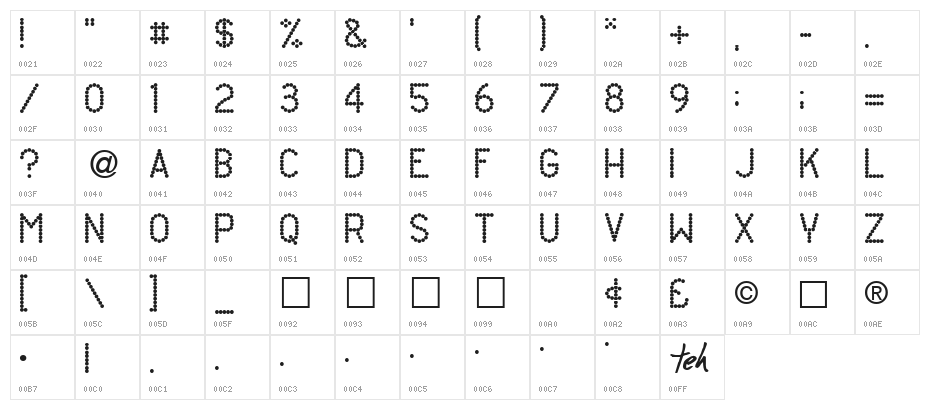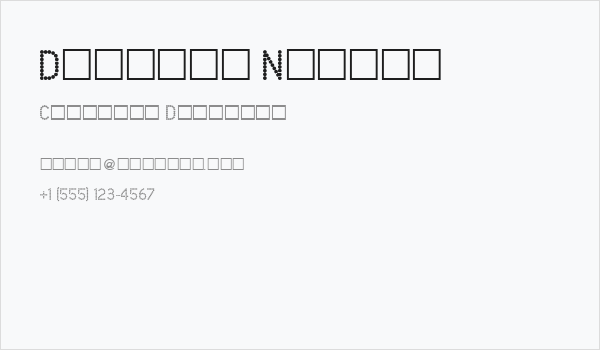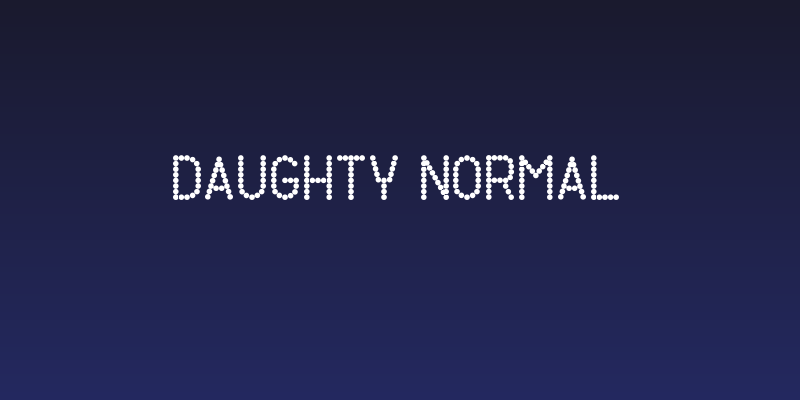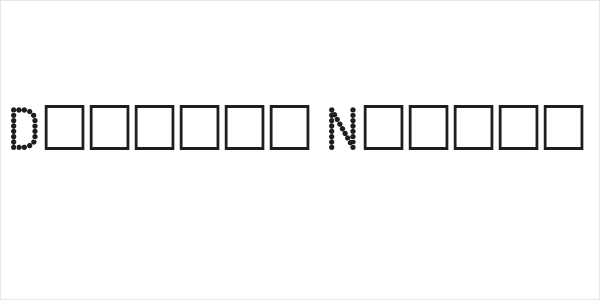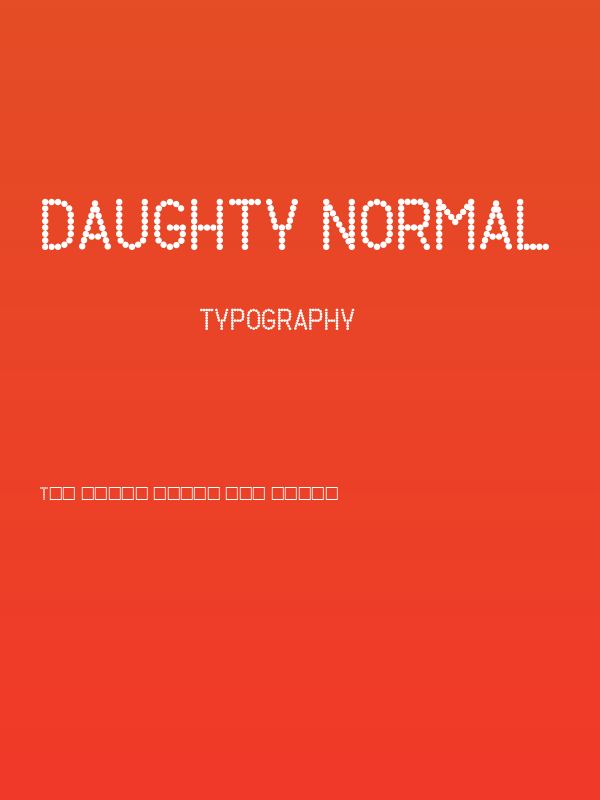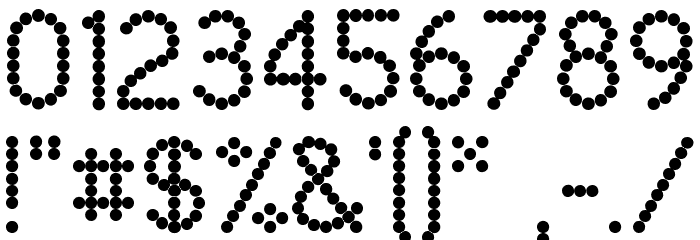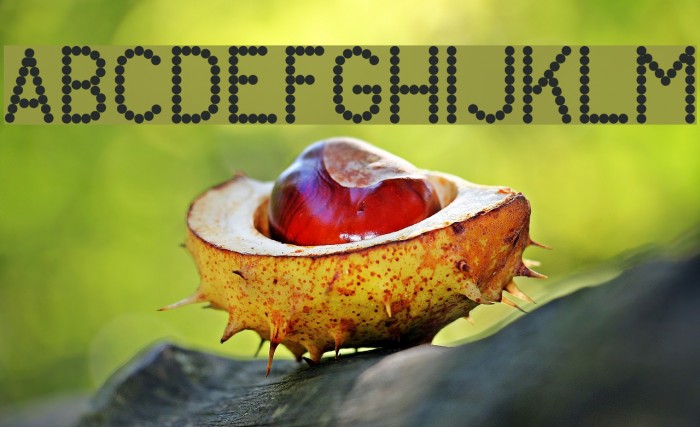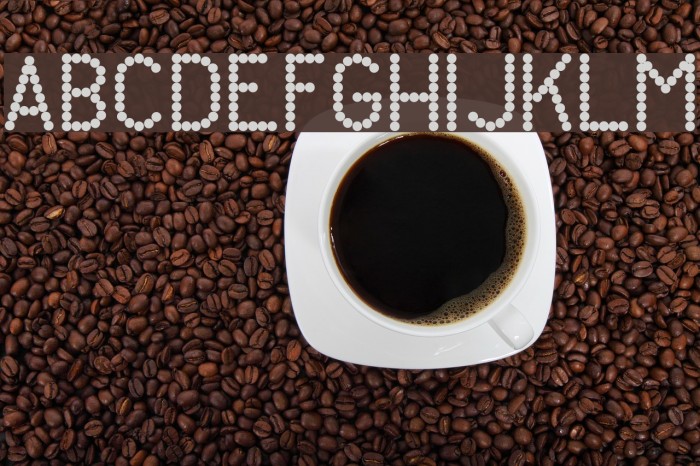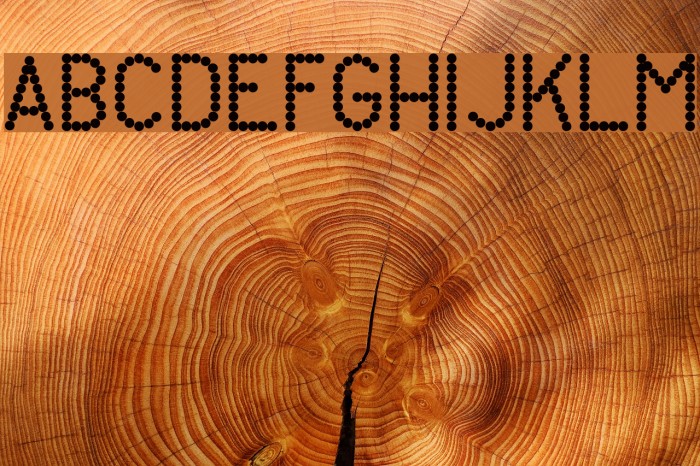
Daughty Normal Font
Daughty Normal Description
This font features a unique design where each character is composed of evenly spaced dots, creating a distinct and playful appearance. The uppercase and lowercase letters, as well as numbers and special characters, maintain a consistent dot pattern, giving the font a cohesive look. The style is reminiscent of digital displays or LED signs, making it stand out with its modern and technological vibe. The uniformity in dot size and spacing ensures readability while adding a decorative touch.
| Proposed Projects | Ideal for digital-themed projects, tech-related branding, playful posters, and creative signage. |